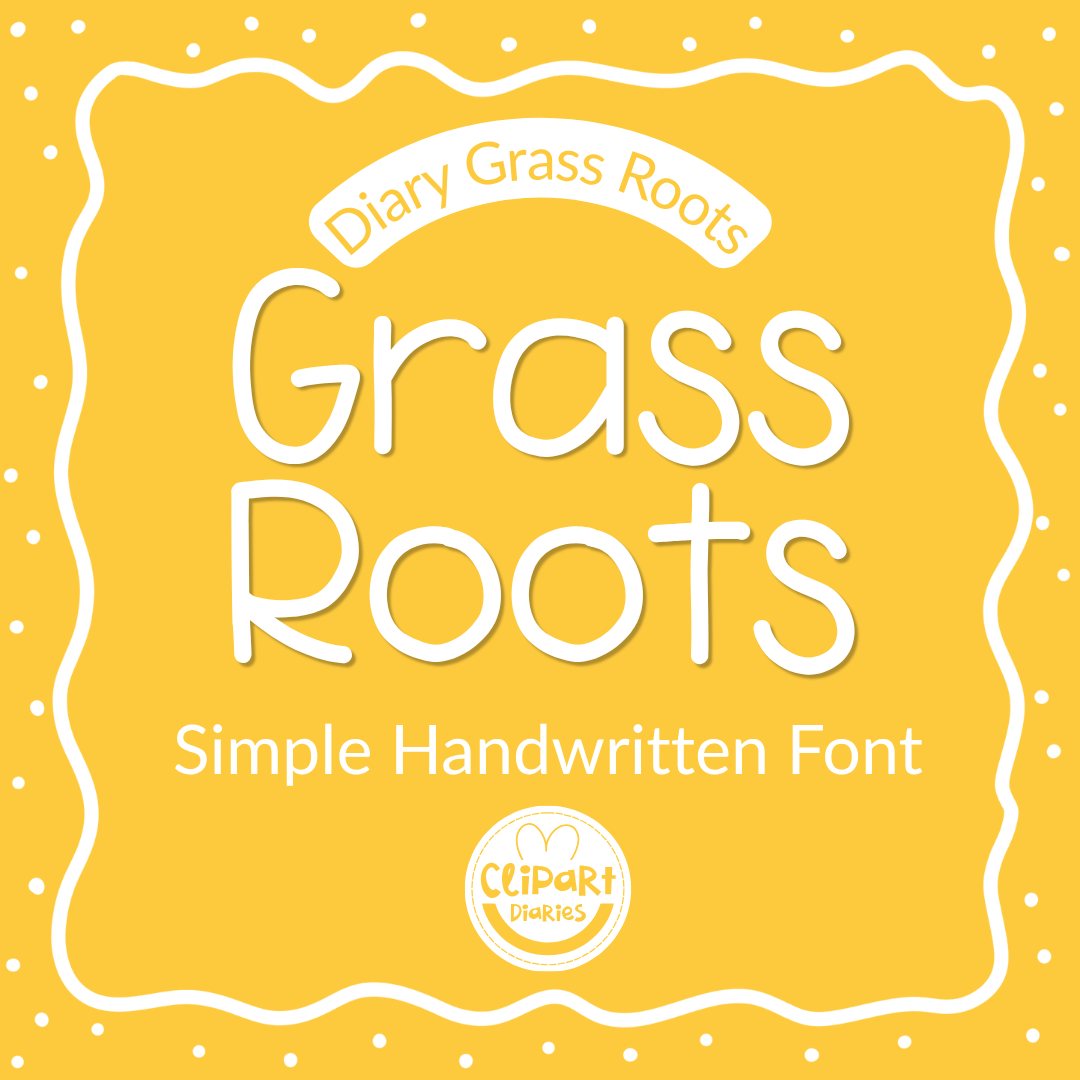
A welcoming, child-friendly font that is clear, legible, well-defined, and straightforward. Designed for primary, elementary, and high school, it is a versatile choice for your educational resources. Diary Grass Roots is suitable for slideshows and visual aids, with numbers that are clear and precise, making it perfect for math resources.